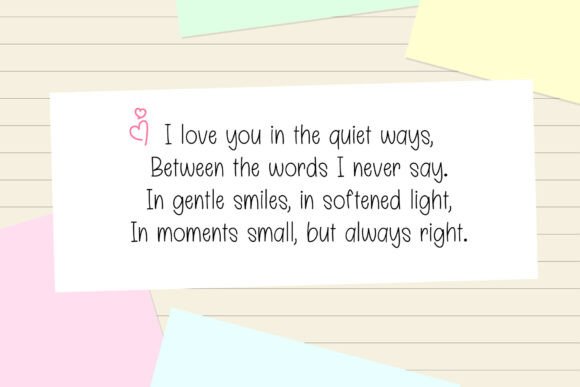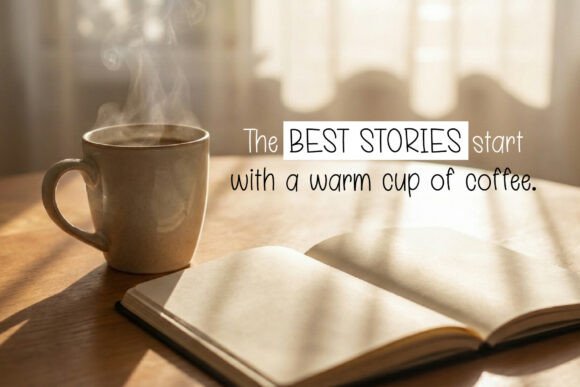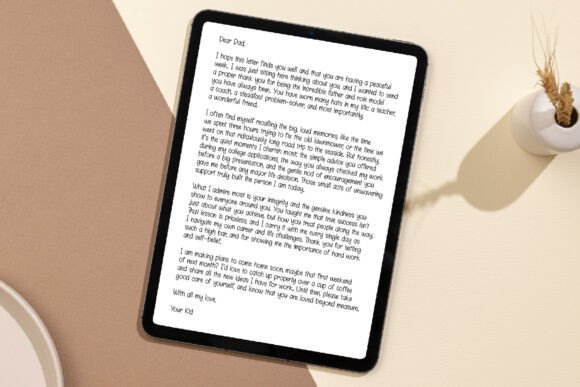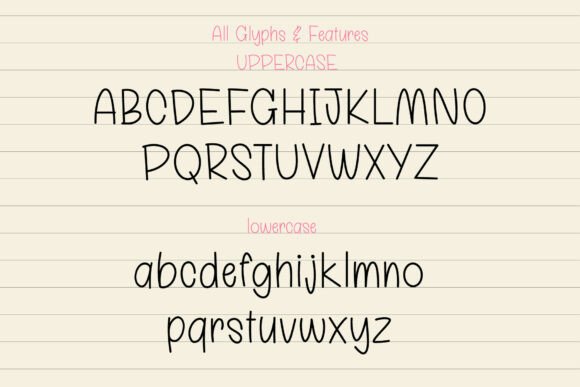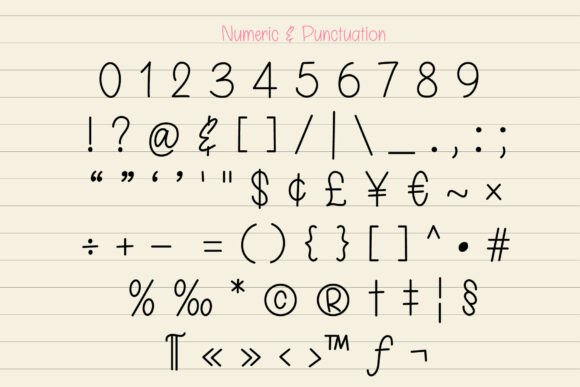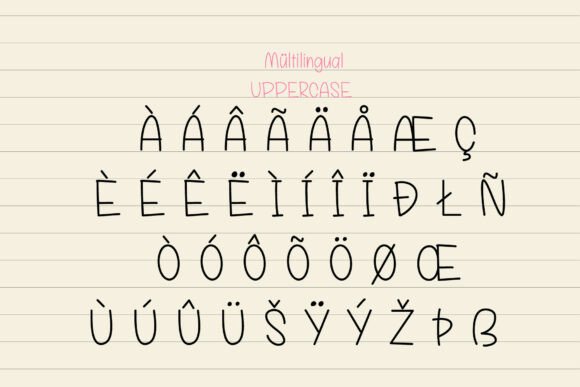
Introduction to Memoir Light Font
There’s something magical about scribbling down your thoughts on a blank page, the sound of the pen gliding across the paper, and the sense of clarity that follows. It’s a moment of unbridled creativity, where the world outside fades away, and all that’s left is the flow of your imagination. This is the essence of Memoir Light Font, a high-quality typeface that captures the essence of handwritten notes and journal entries.
As a designer, you’re always on the lookout for the perfect design resource to bring your creative project to life. Memoir Light Font is that elusive gem that elevates your work to the next level. With its transparent background and free download option, you can experiment with this versatile font without any constraints. Whether you’re crafting a captivating novel, designing an inspiring brand identity, or creating engaging social media visuals, Memoir Light Font is the perfect companion for your journey.
Key Features of Memoir Light Font
- High-quality, elegant script font ideal for creative projects and design resources.
- Includes a range of glyphs and characters, including Latin, Cyrillic, and Greek alphabets, making it a versatile design resource.
- Designed to be highly legible, with a clear and elegant appearance suitable for a variety of creative projects, from wedding invitations to branding materials.
Honest Review: Memoir Light Font
As a designer, I’m always on the lookout for high-quality fonts that can elevate my creative projects. Recently, I had the chance to work with the Memoir Light Font, and I’m excited to share my honest review.
- The Memoir Light Font is incredibly versatile, making it perfect for a wide range of design projects, from book covers to blog headers.
- The font’s high quality is immediately apparent, with crisp lines and a clean, elegant design that’s easy on the eyes.
- The Memoir Light Font may not be the best choice for bold or dramatic designs, as it’s a relatively subtle and understated font.
- The font’s range of weights and styles is limited, which may not be ideal for designers who prefer more flexibility.
Overall, I’m impressed with the Memoir Light Font and would definitely recommend it to designers working on creative projects that require a high-quality, elegant font. While it may not be the best choice for every project, it’s a solid addition to any design resource library.
The Memoir Light Font is a high-quality, elegant font perfect for any creative project. With its transparent background and sleek design, it’s a versatile design resource ideal for various applications.
The Memoir Light Font is ideal for a variety of applications, including wedding invitations, business cards, and creative portfolios. Its elegant design and transparent background make it a popular choice for designers and creatives.